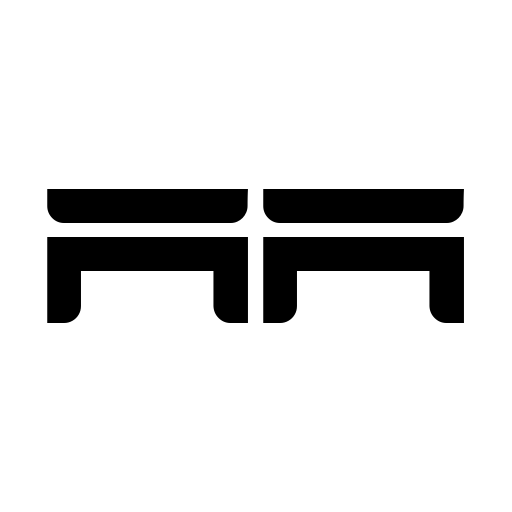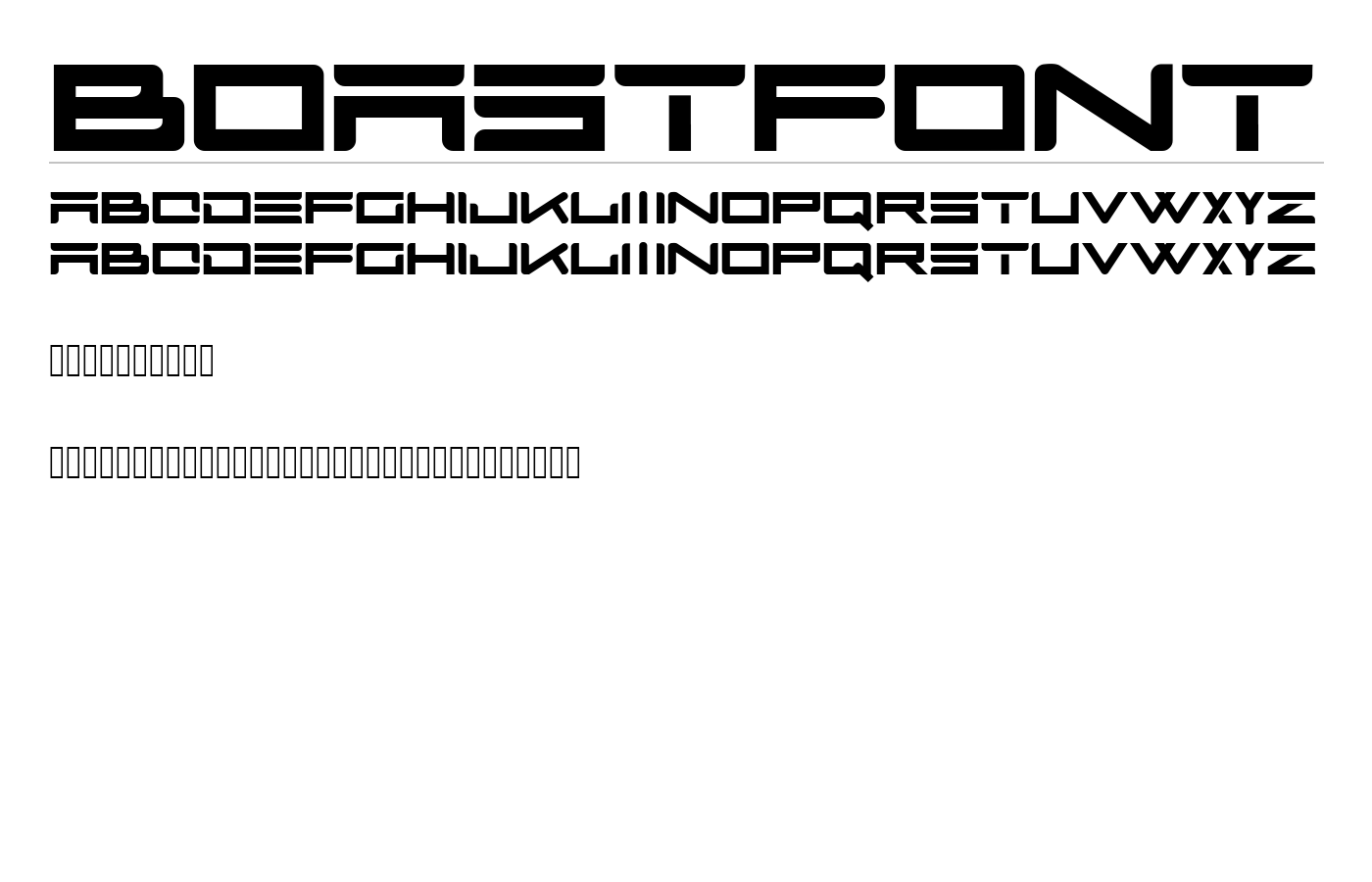
BOASTfont is a bold, futuristic sans serif typeface featuring strong geometric shapes and sharp angles. Its wide, blocky letterforms with unique cutouts and stylized details create a dynamic, high-tech feel that works perfectly for technology brands, gaming, and modern headlines. This font stands out with its distinctive personality, making it ideal for eye-catching logos, posters, and digital designs.
BOASTfont